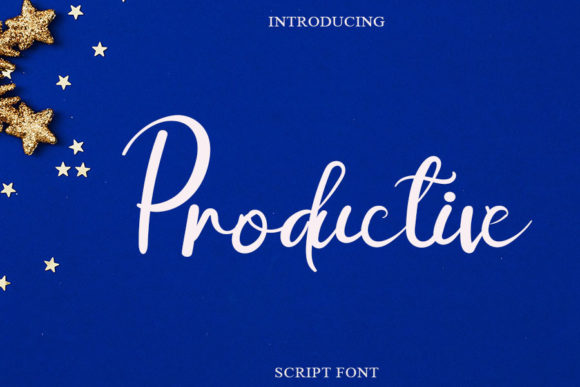
Productive Font
About Productive Font
Productive is a delicate, elegant and flowing script font. It has beautiful and well balanced characters and as a result, it matches a wide pool of designs. Add it to your most creative ideas and notice how it makes them come alive!